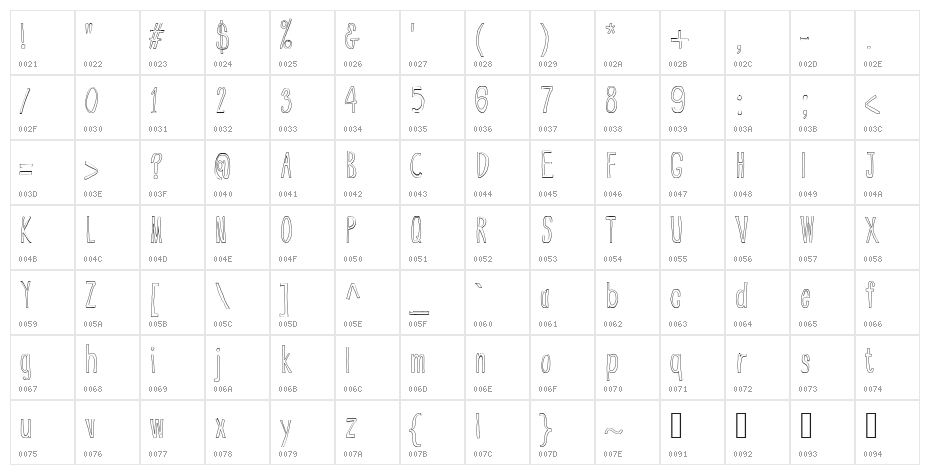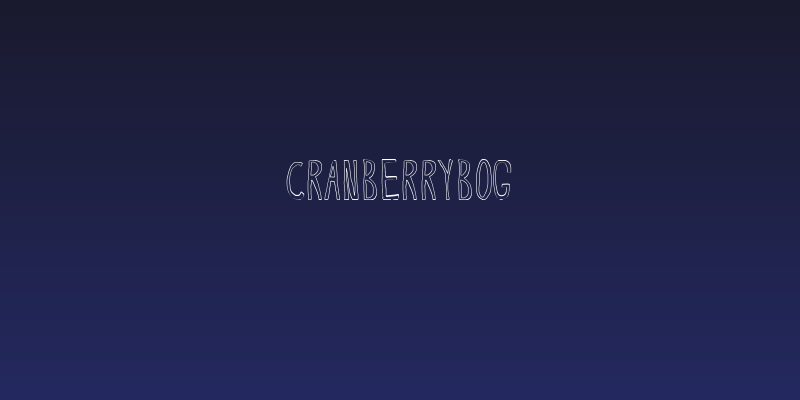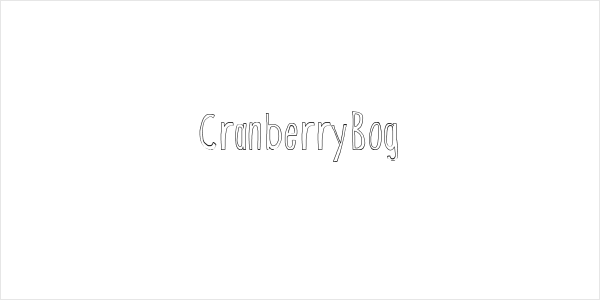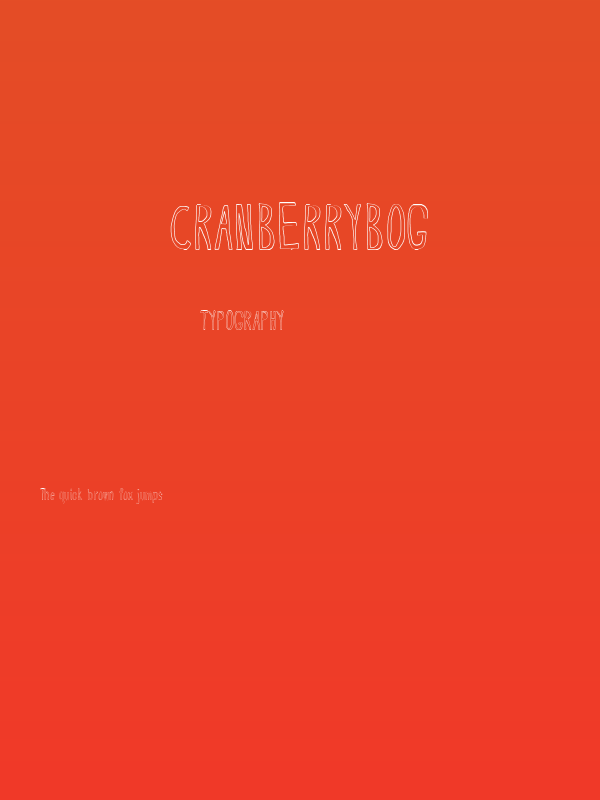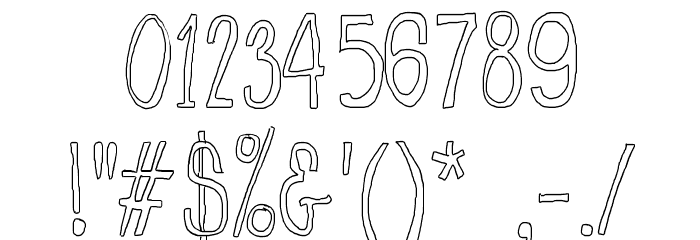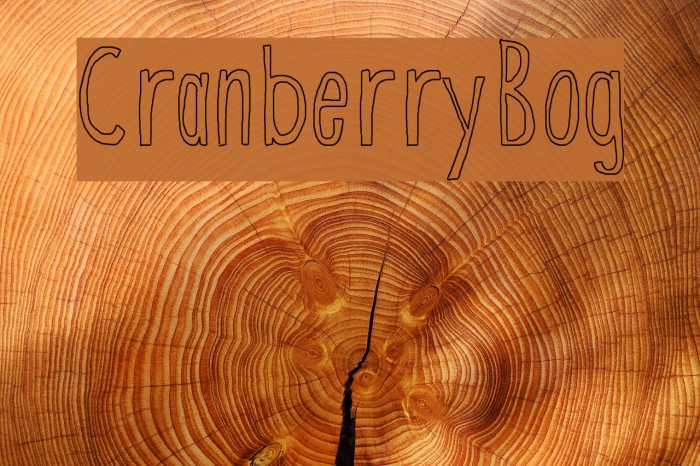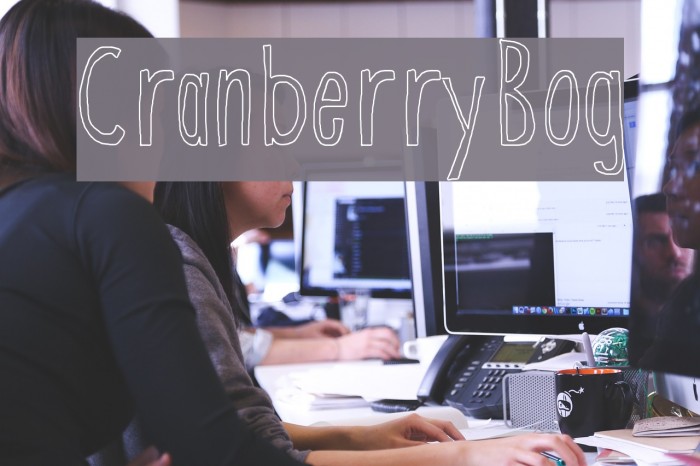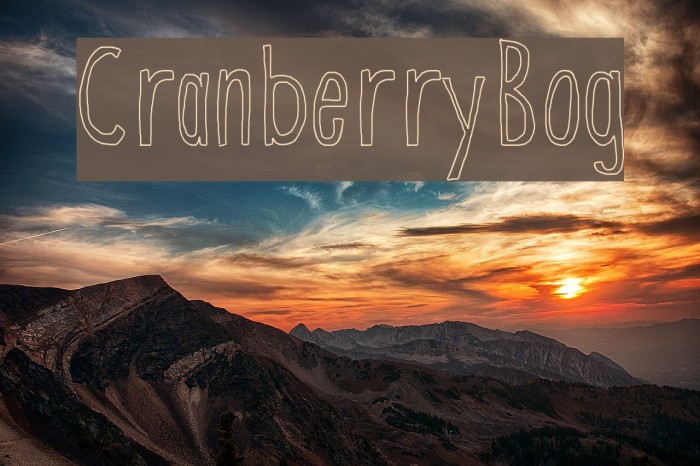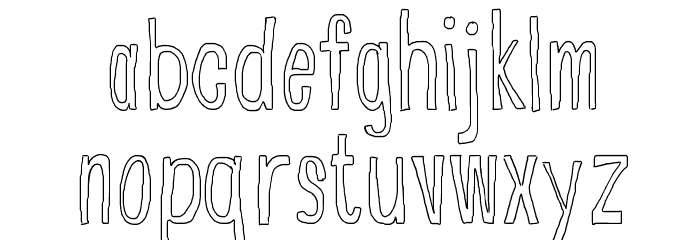
CranberryBog Font
CranberryBog Description
This font features a playful and hand-drawn aesthetic, characterized by its irregular and slightly wobbly lines. The uppercase and lowercase letters maintain a consistent height, giving it a cohesive look despite its quirky style. The numbers and special characters follow the same hand-drawn theme, adding to the font's overall charm. Its unique appearance makes it stand out, offering a casual and informal vibe that is both approachable and friendly.
| Proposed Projects | Ideal for children's books, playful branding, greeting cards, and informal invitations. |